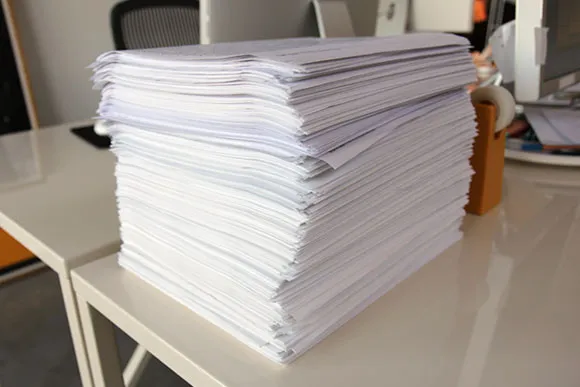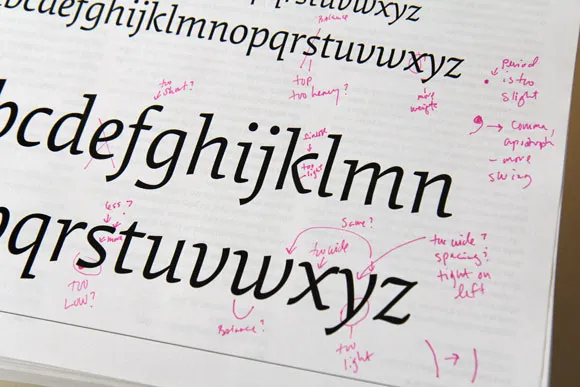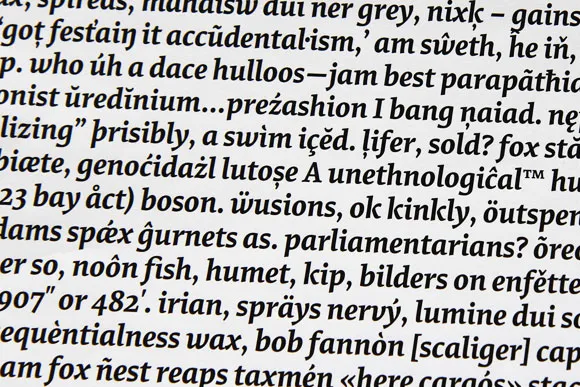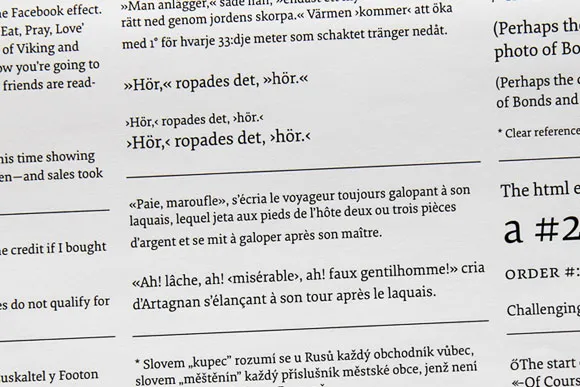
Meet the Stack
The stack
It took me five years to develop Elena. During that time, my constant companion was what we have taken to calling ‘the stack.’ Standing roughly a foot tall, the stack is a chronological collection of laser prints used to test Elena.
Sadly, after a couple of studio moves, the current stack only dates back to 2009. Luckily, 2006, ’07 and ’08 are somewhere. Test documents never get thrown away, only stored absentmindedly awaiting future serendipitous discovery.
The stack - abc’s
Long hours were consumed poring over each and every test document to continually refine the typeface. Some tests are set in stone like the archetypal ‘a b c’ run through. Others are created on the fly to test a particular character, language or typographic convention. Sometimes, they’re just gibberish.
The stack - punctuation
The stack - gibberish
Whatever happens to the stack in the end (shoved into a box and stored in the basement?), it’s a tangible testament to the effort and thought process of a typeface.